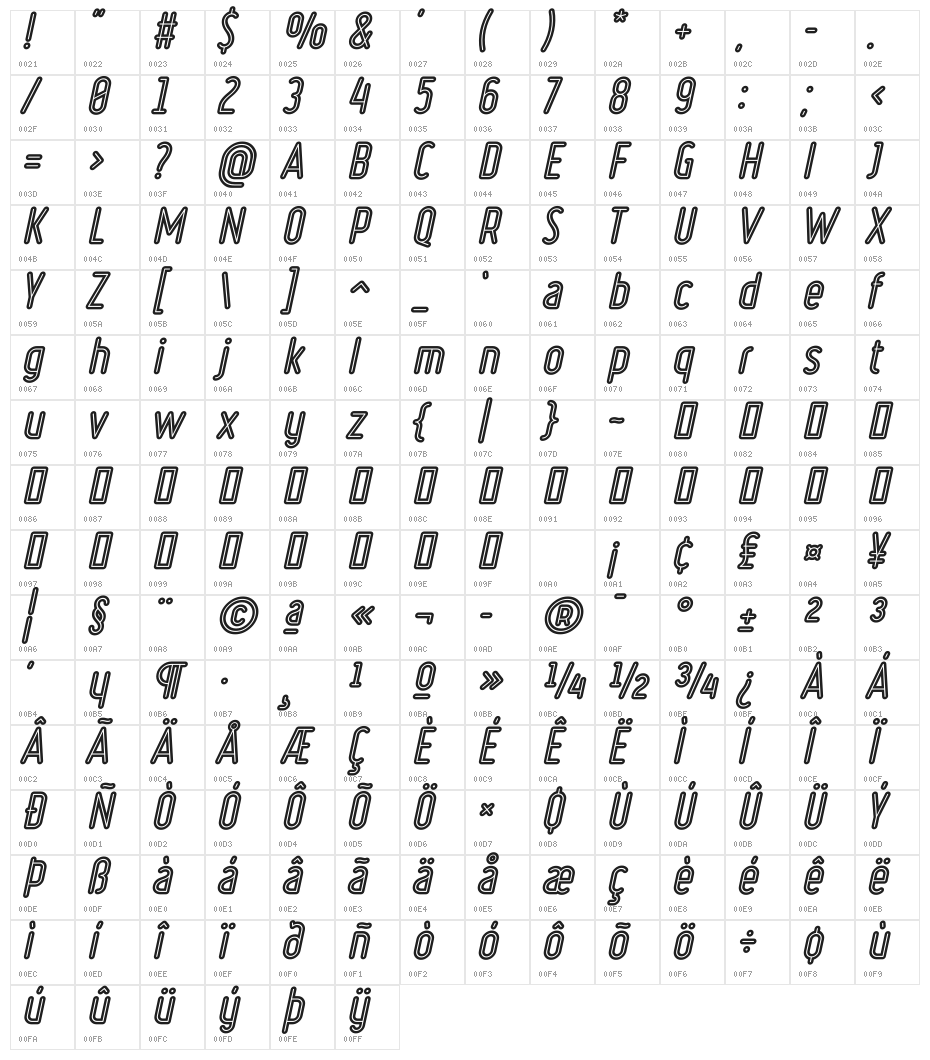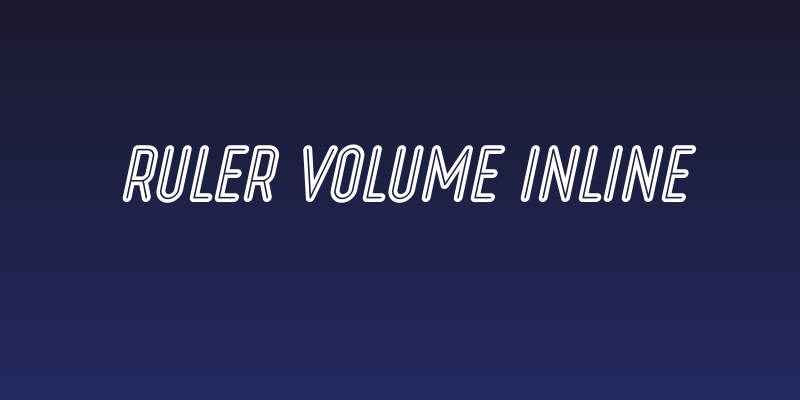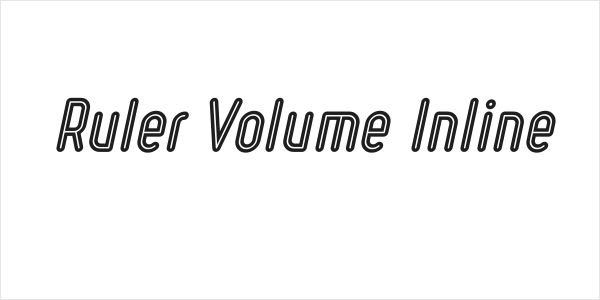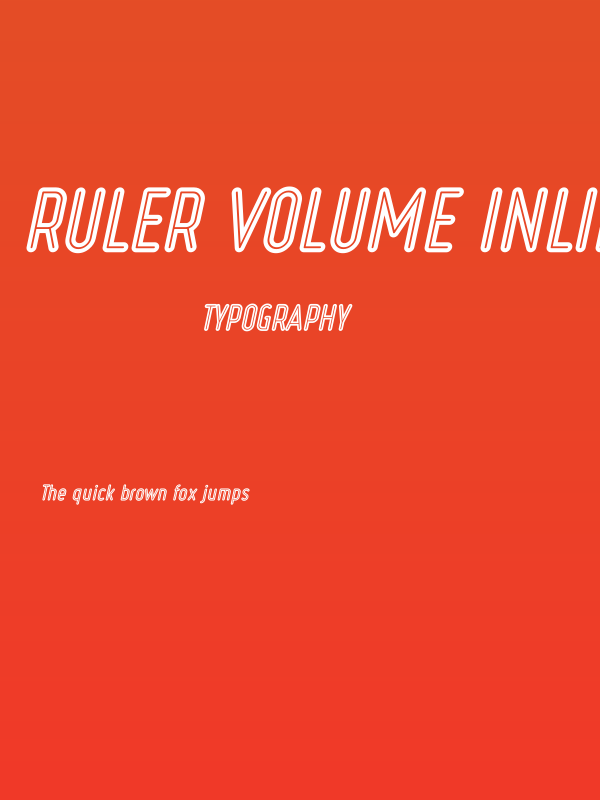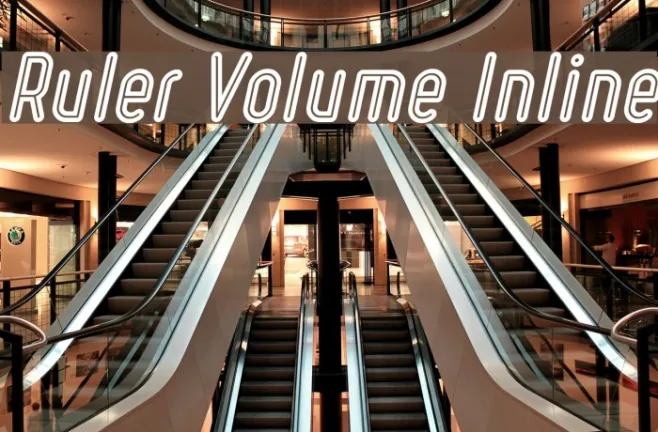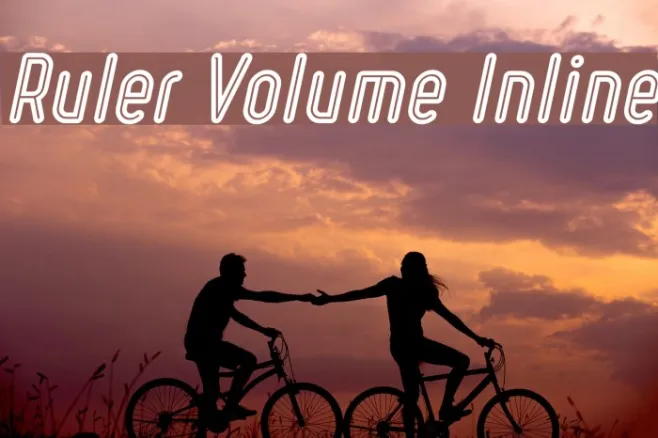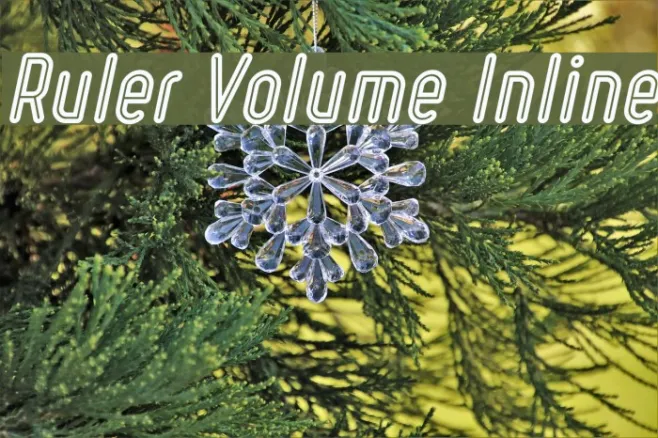
Ruler Volume Inline Font
Ruler Volume Inline Description
This font features a modern and sleek design with an inline style that gives each character a three-dimensional appearance. The uppercase and lowercase letters are consistent in their geometric structure, with rounded edges and a slight slant that adds a dynamic feel. The numerals and special characters maintain the same inline effect, ensuring uniformity across all glyphs. The font's overall aesthetic is contemporary and eye-catching, making it suitable for projects that require a bold statement.
| Proposed Projects | Ideal for branding, posters, headlines, and any design that requires a modern and dynamic look. |